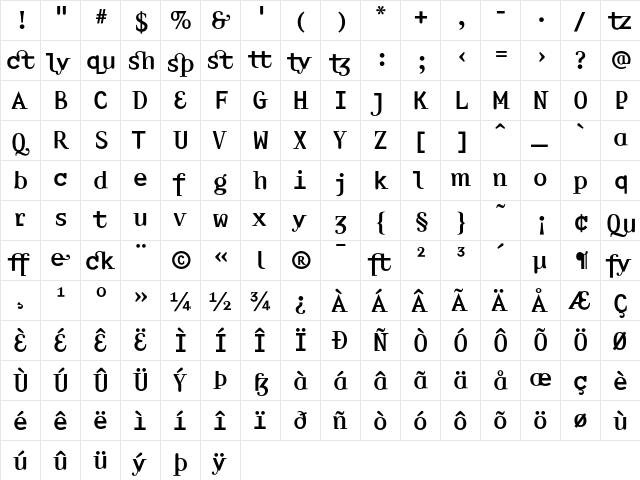
Amplifier LightLigatures
Design Context for Amplifier Typeface
Amplifier takes a measured approach to typography — its balanced proportions and neutral character make it a reliable workhorse for both digital and print work. Its slender proportions lend an understated elegance to any composition.